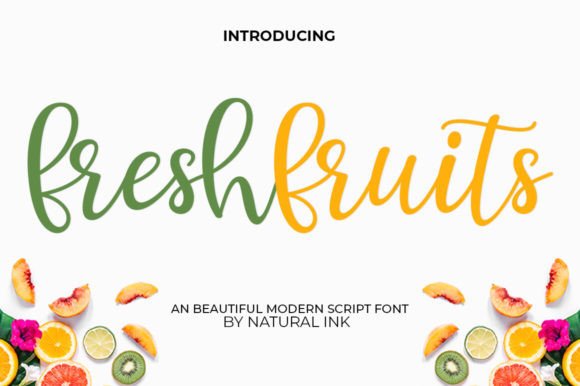
Introducing Fresh Fruits Font, the epitome of elegance and style in the world of script fonts. Created by the talented minds at Natural Ink, this font is the perfect choice for anyone seeking to add a touch of sophistication to their designs.
With its stunning and intricate details, Fresh Fruits Font is guaranteed to make a lasting impression. Whether you're designing wedding invitations, thank you cards, or quotes, this font will elevate your creations to new heights of beauty. Its graceful strokes and delicate curves lend an air of romance and charm to any project.
Imagine the joy and excitement your loved ones will feel when they receive an invitation adorned with Fresh Fruits Font. It exudes a sense of luxury and refinement, instantly capturing attention and setting the tone for a memorable event. Let your designs speak for themselves and leave a lasting impression on all who lay eyes upon them.
Not only is Fresh Fruits Font perfect for special occasions, but it also shines in professional settings. From business cards to logos, this font adds a touch of sophistication to your brand. It conveys a sense of professionalism and creativity, making your business stand out from the crowd.
But Fresh Fruits Font is not just a pretty face; it's also incredibly versatile. Its handwritten touch brings warmth and personality to any design, making it suitable for a wide range of projects. Whether you're creating a poster, a social media graphic, or a website banner, this font will captivate your audience and leave them wanting more.
Don't settle for ordinary fonts when you can have the best fonts for just one letter. Fresh Fruits Font is the epitome of uniqueness and individuality. It allows you to express your creativity and make a statement with every stroke of the pen.
In a world where first impressions matter, Fresh Fruits Font ensures that your designs leave a lasting impact. Its captivating beauty and timeless elegance will make your creations unforgettable. So why wait? Take your designs to the next level and let Fresh Fruits Font be the star of the show.